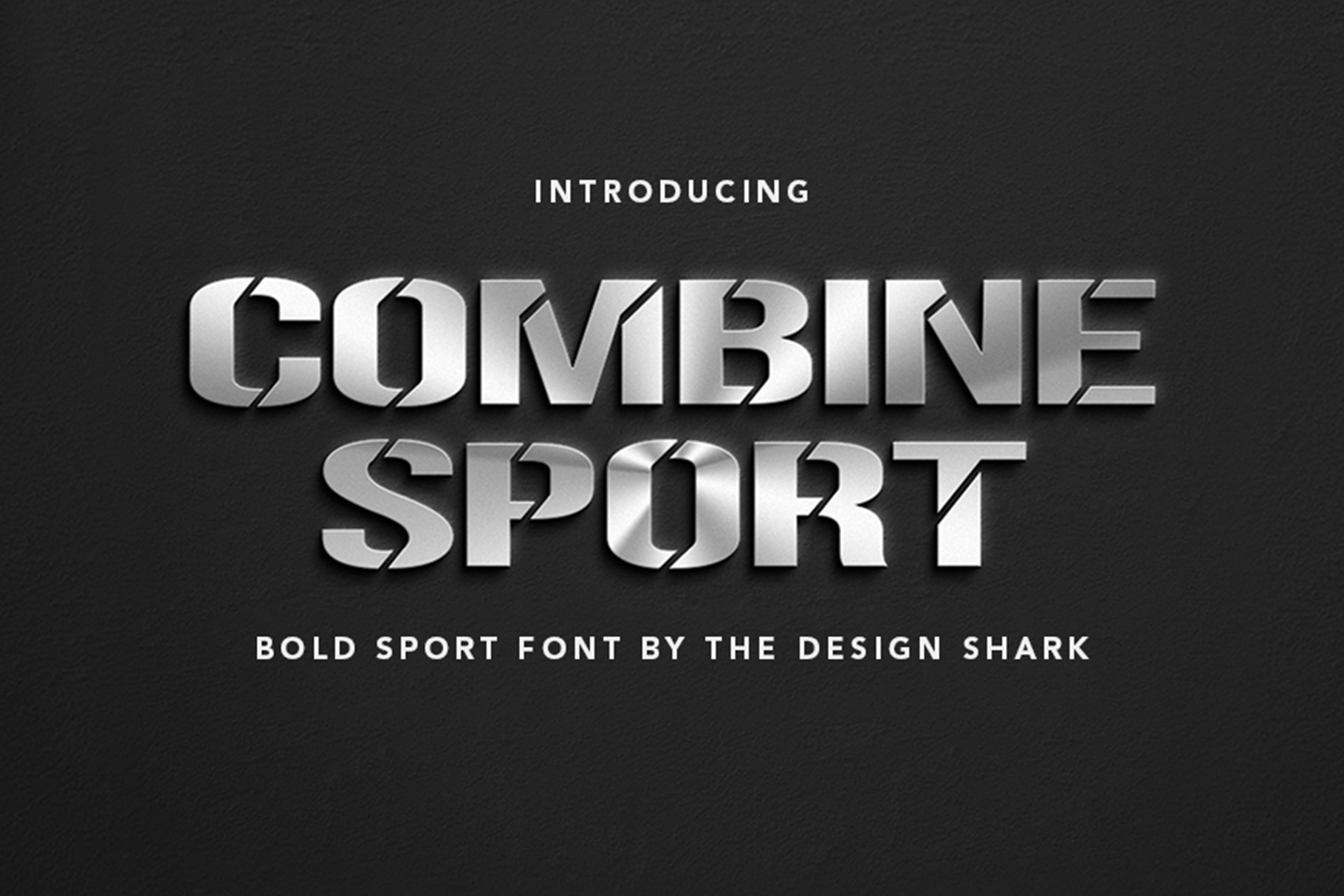
Combine Sport Typeface
Combine Sport is a bold sport font.
Combine Sport font is a bold all caps typeface. A strong and edgy font, Combine Sport is designed to work well at medium-to-large size, ideal for posters/flyers, headlines, movies, and logotypes.